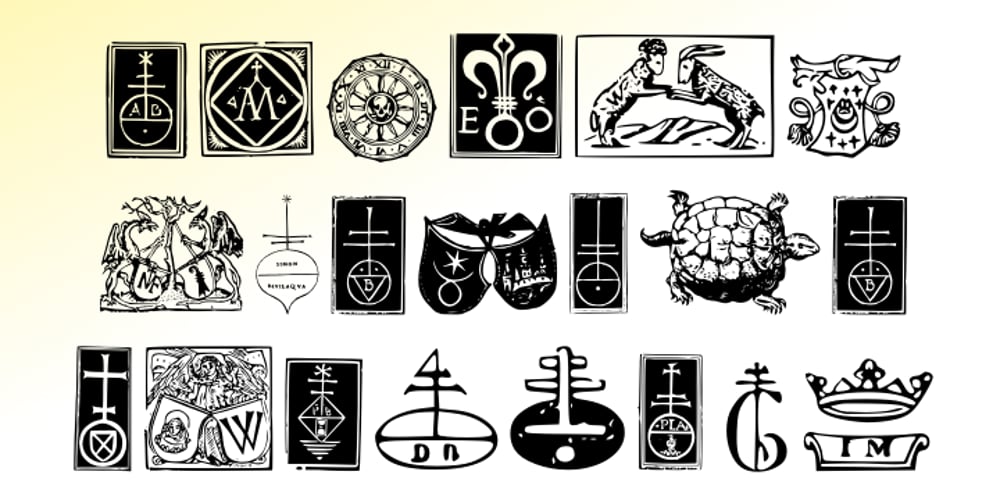
Printers in Marks Font Family was designed by Shane Brandes and published by Proportional Lime. Printers in Marks contains 1 styles and family package options. In the early days of printing it was soon recognized that there was a need to identify the printer and publisher behind the printed work. So these industrious people created marks to identify themselves to clients. This font contains over 160 marks dating back to the early years of printing with the likes of Fust, Ratdolt, Manutius, Caxton, and a whole host of others represented. Some of these printers were very influential and altered the course of history, some merely enabled the broader public to access the classics. Some were imprisoned and others helped foment revolutions. But all were riding the new current of this technology of moveable type that helped transform our world through the enabling of easily exchanging information.